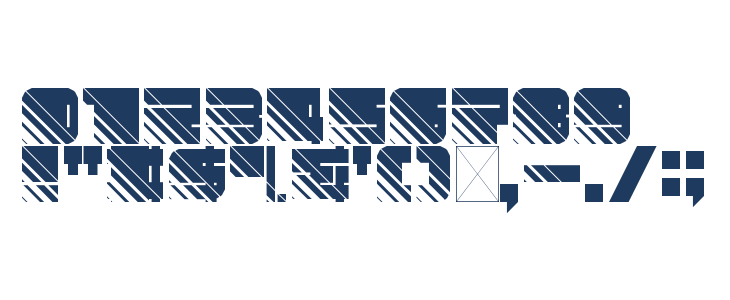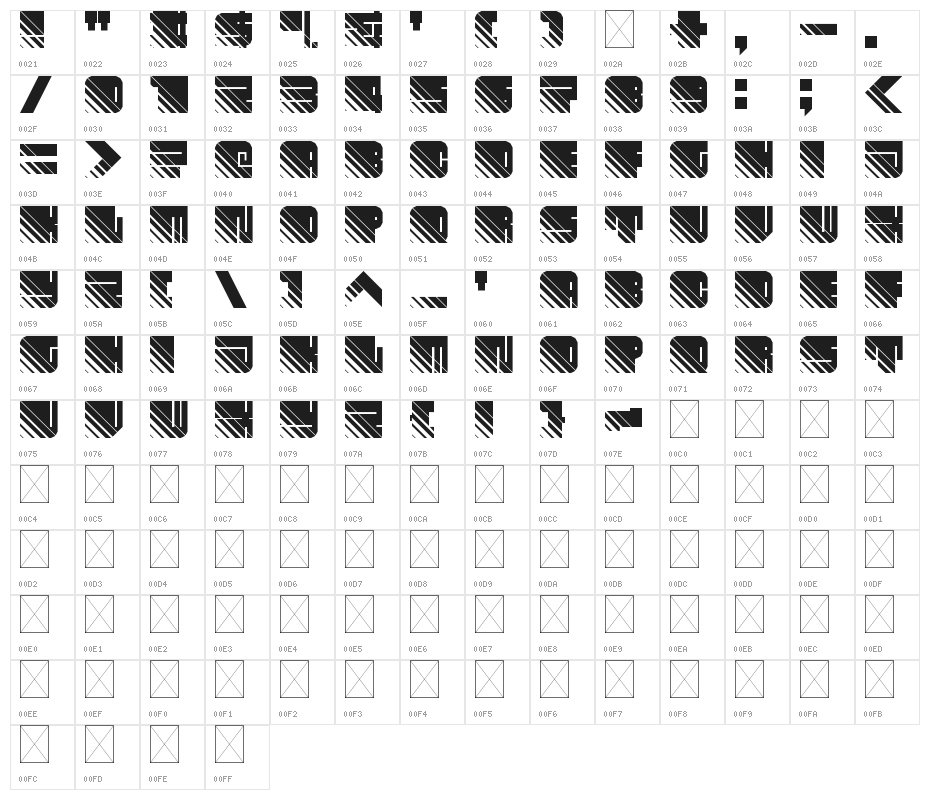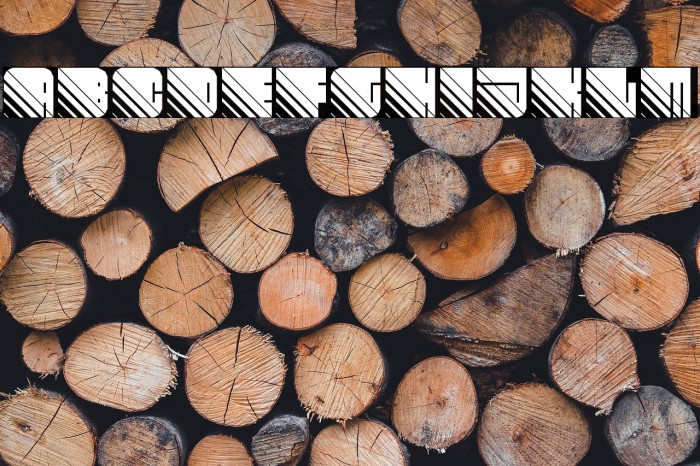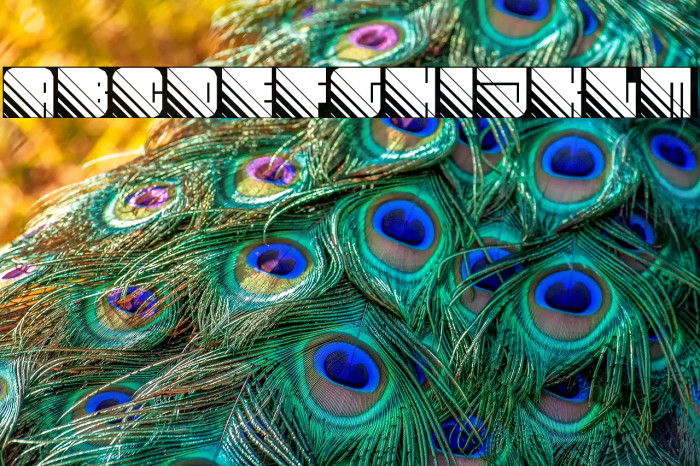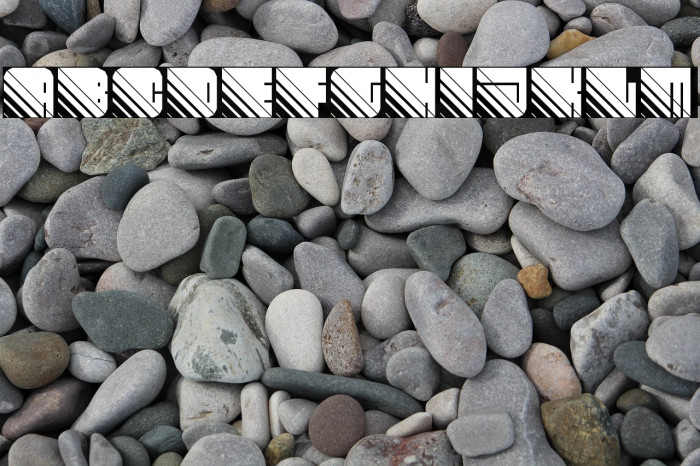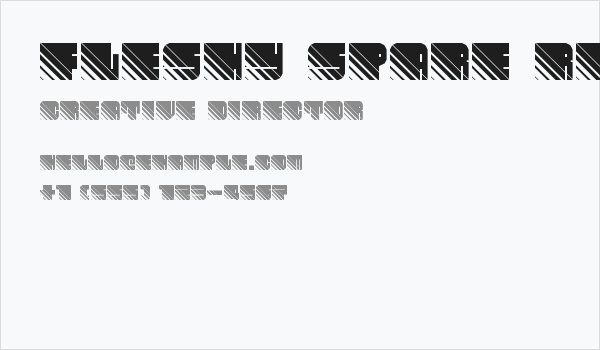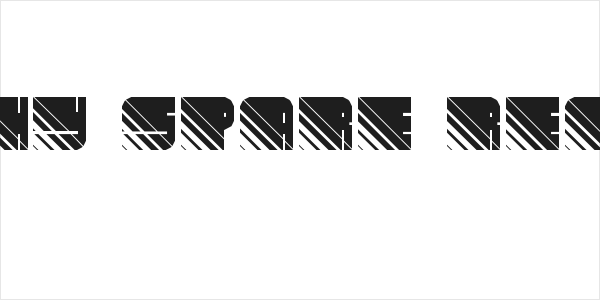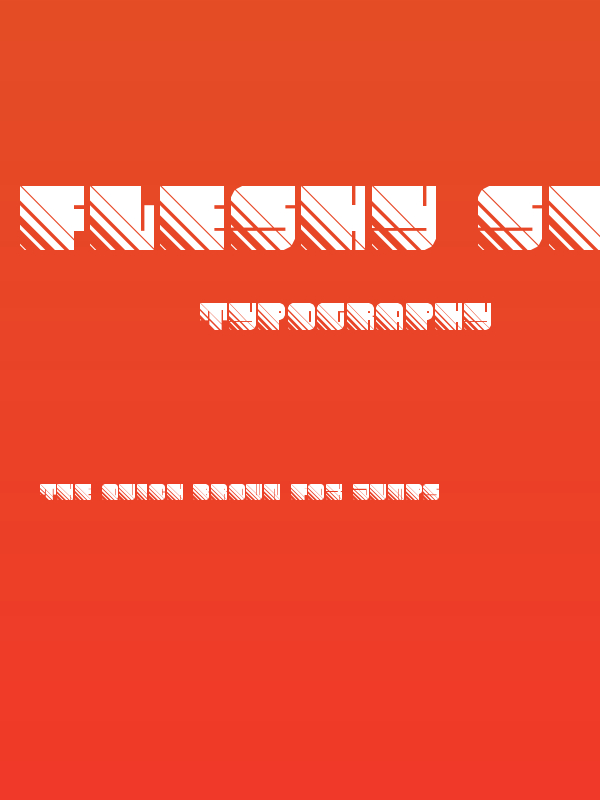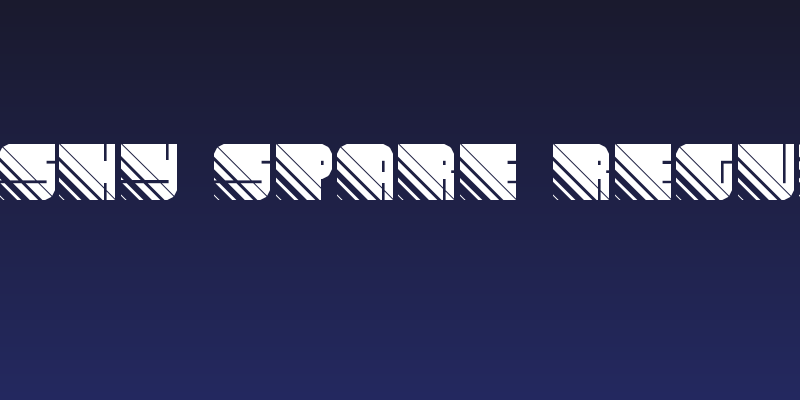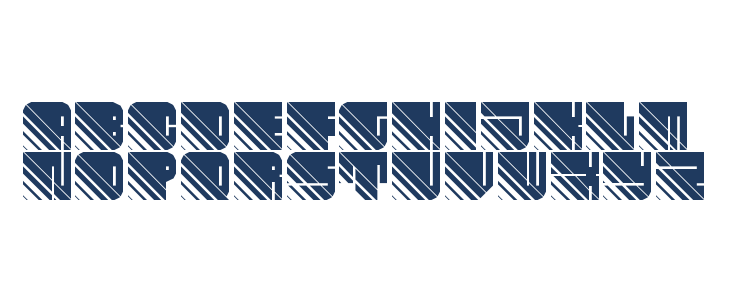
Fleshy Spare Regular Font
Fleshy Spare Regular Description
This font features a bold, geometric design with a unique striped pattern running diagonally across each character. The letters are blocky and robust, creating a strong visual impact. The uppercase and lowercase letters maintain a consistent style, with the stripes adding a dynamic and modern touch. The numbers and special characters follow the same design principles, ensuring uniformity across all glyphs. This font's distinctive appearance makes it suitable for eye-catching designs where a bold statement is desired.
| Proposed Projects | Ideal for branding, poster designs, headlines, and any project requiring a bold, modern aesthetic. |